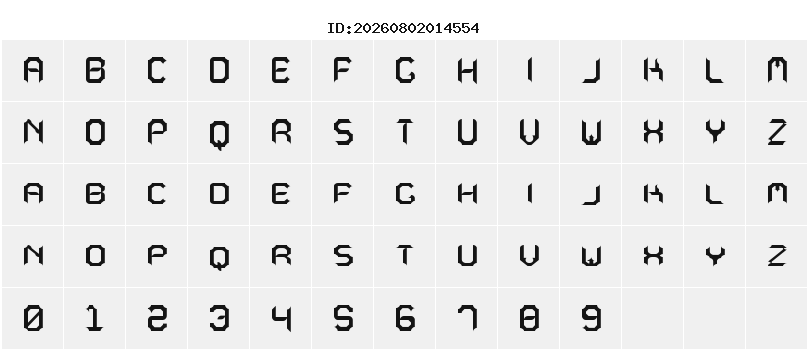
Mavole Sinpo tfb Preview
• Font Name: Mavole Sinpo tfb
• Designer: kaiser zhar khan
About Mavole Sinpo tfb.ttf
Mavole Sinpo tfb.ttf is a modern, elegant sans-serif font designed for ultimate readability and visual harmony. Perfect for branding, headlines, web design, and print materials.